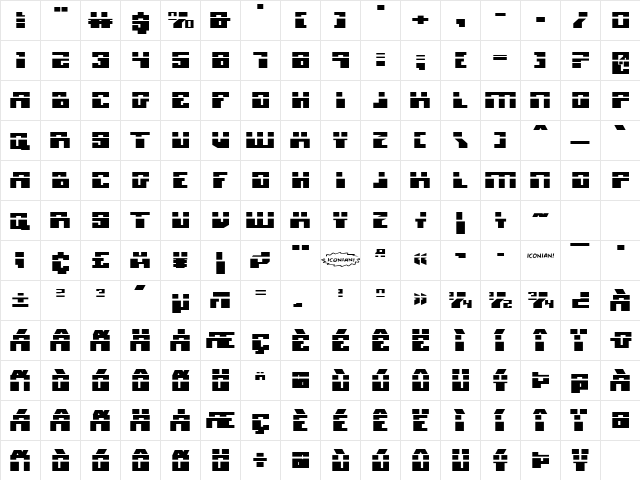
Micronian Expanded Laser Expanded Free Font
Micronian Expanded Laser Expanded
Style: Expanded
Design Context for Micronian Expanded Laser
Micronian Expanded Laser is a composed and adaptable typeface that performs quietly and consistently across a wide range of design contexts.